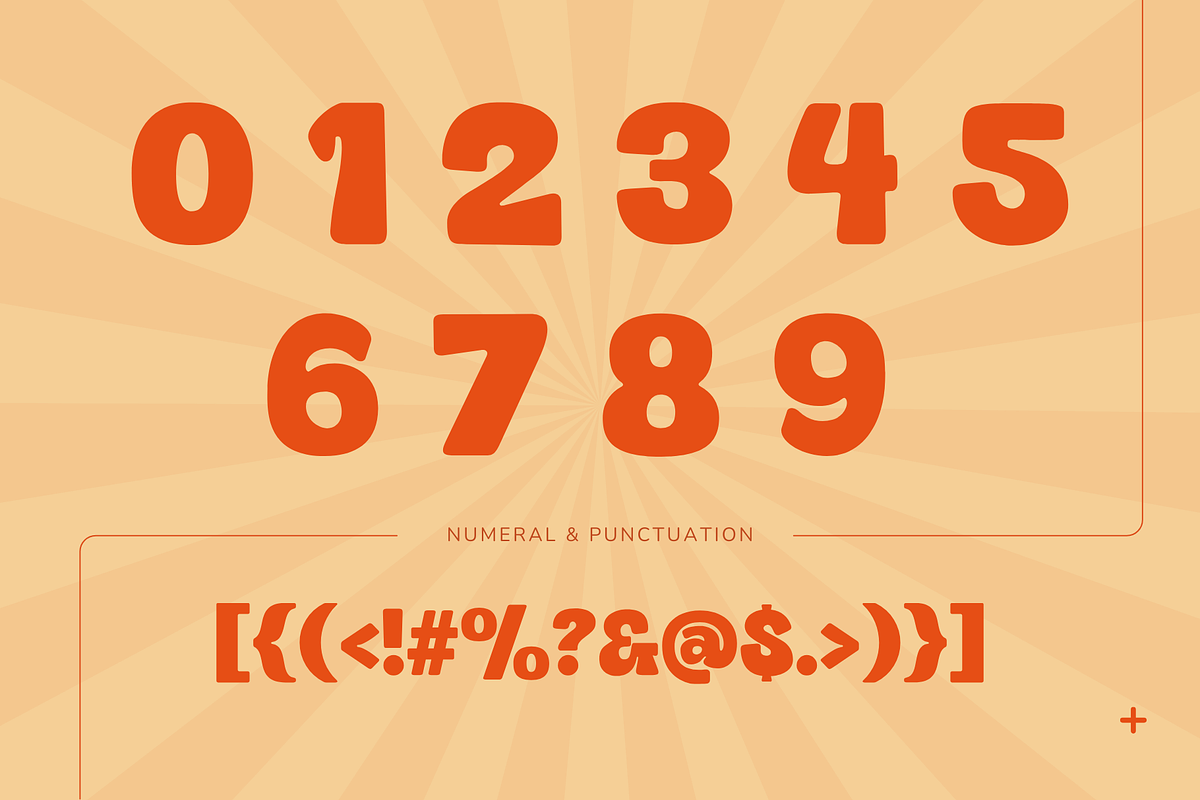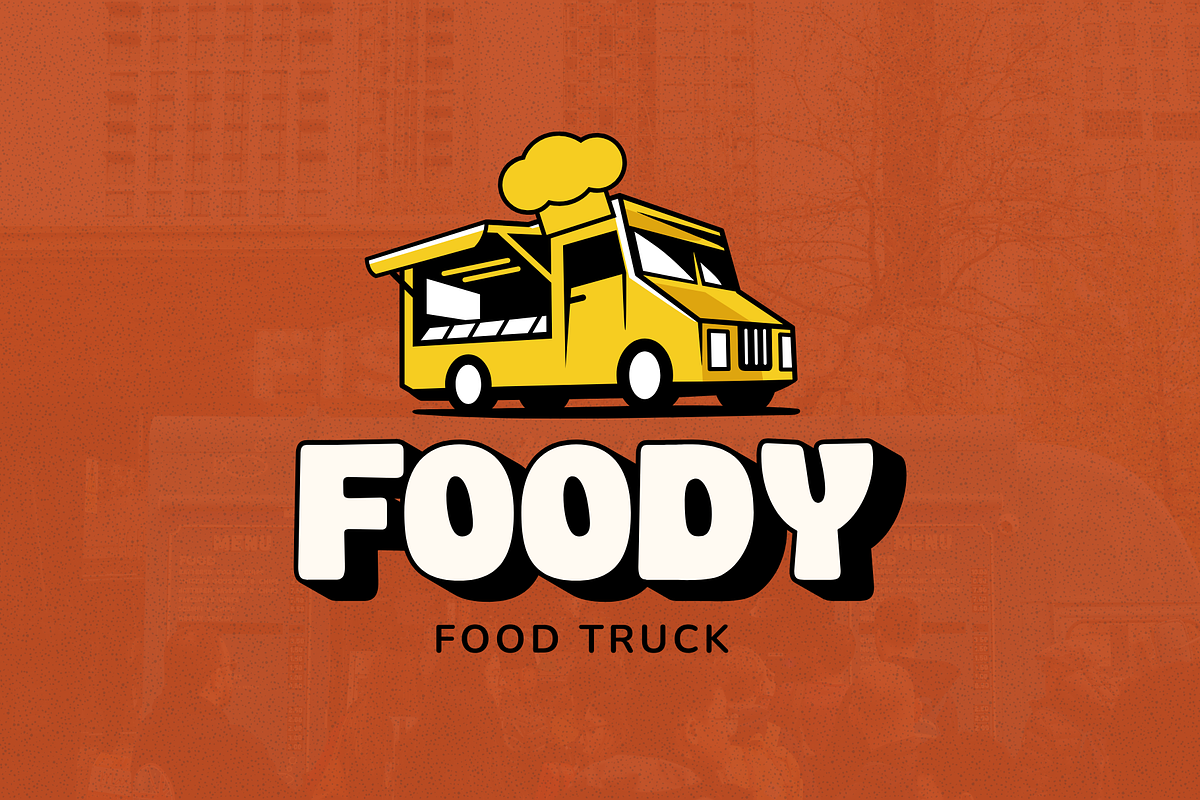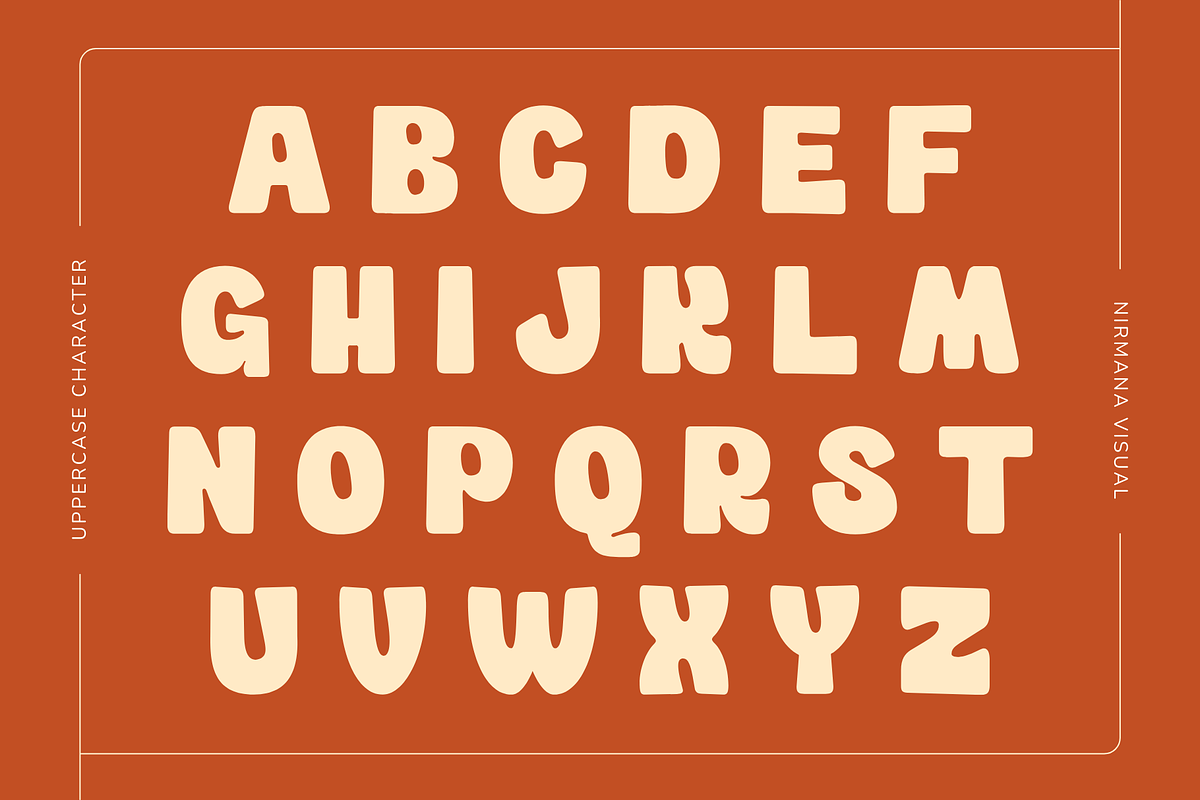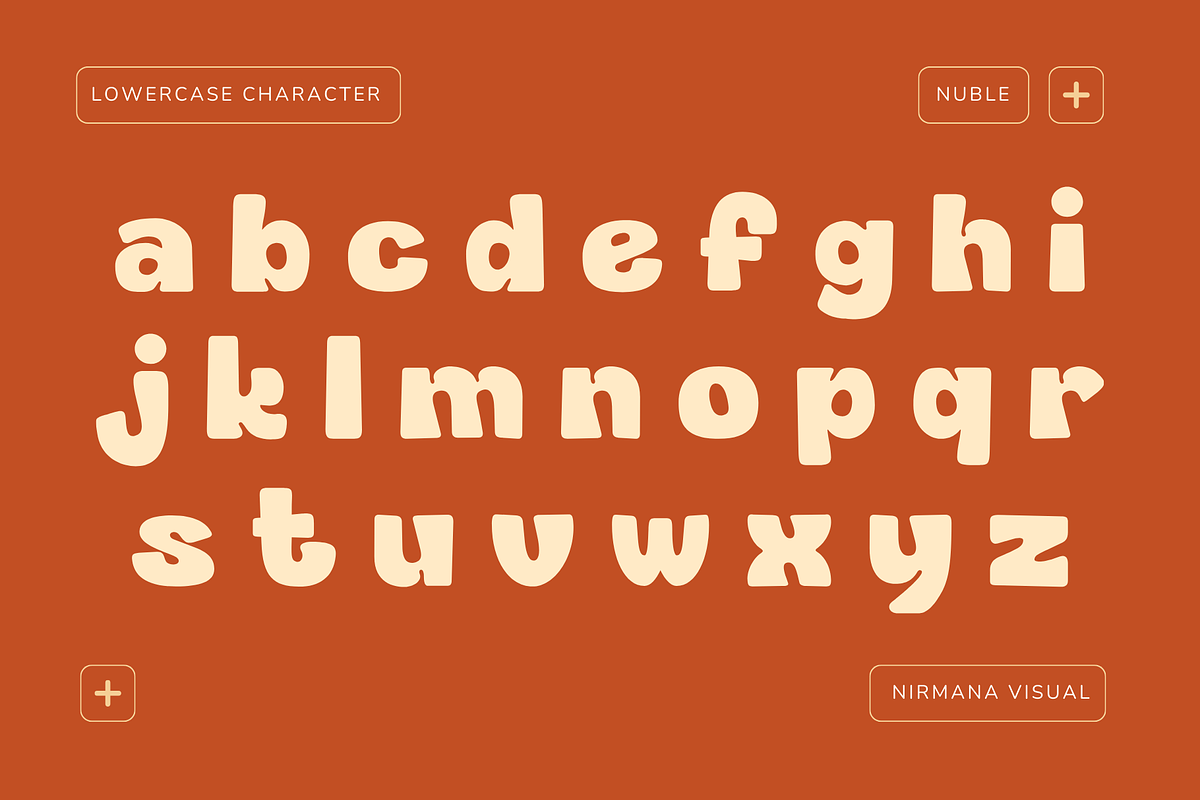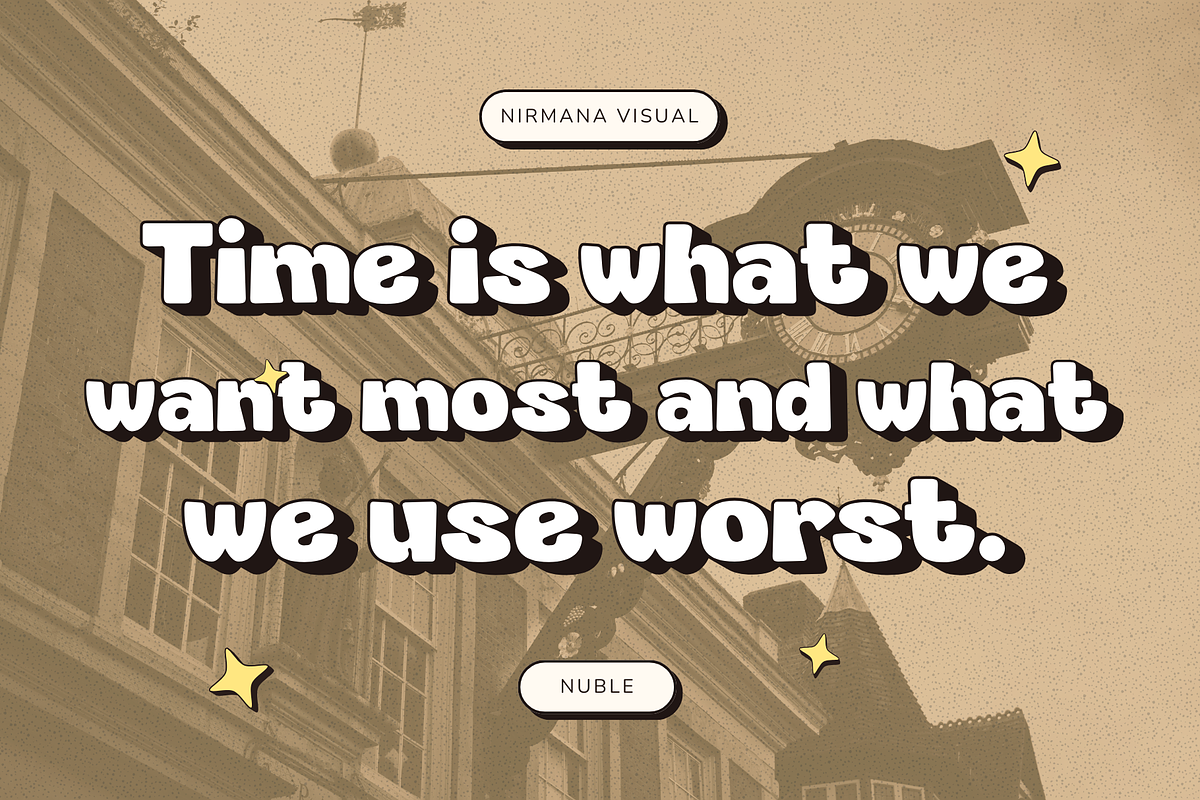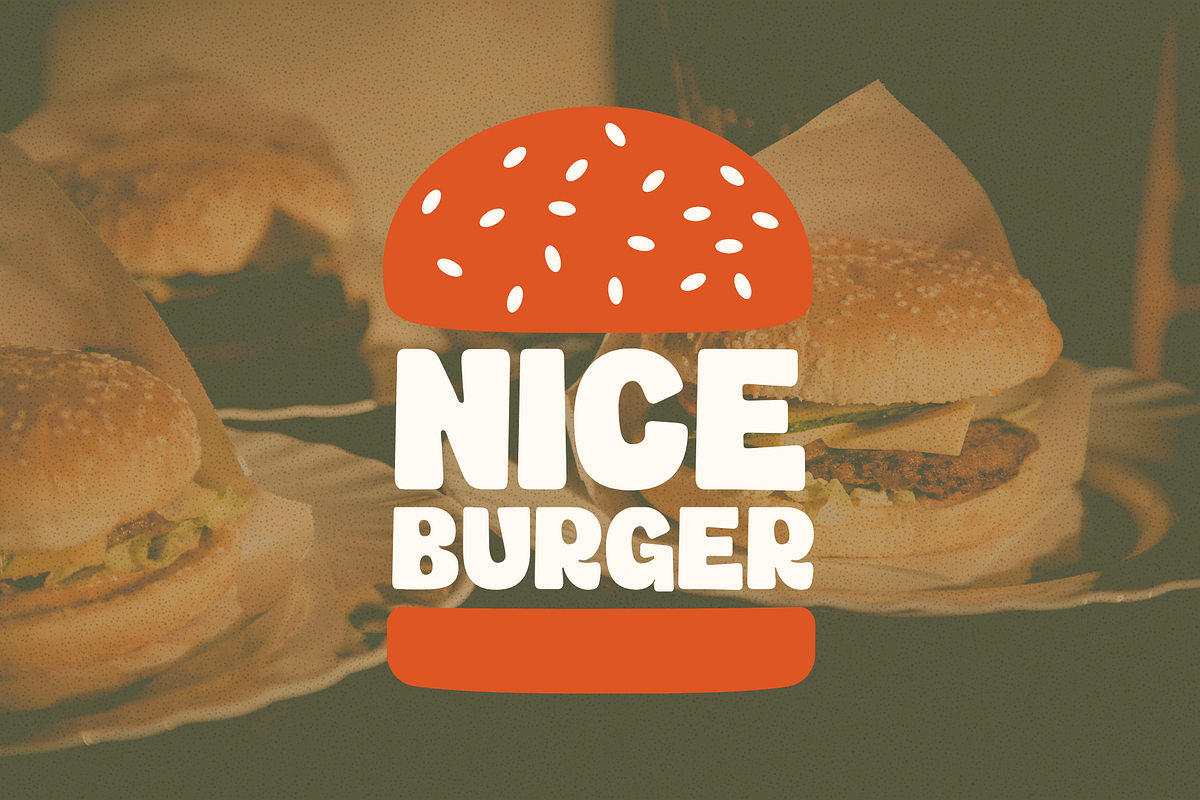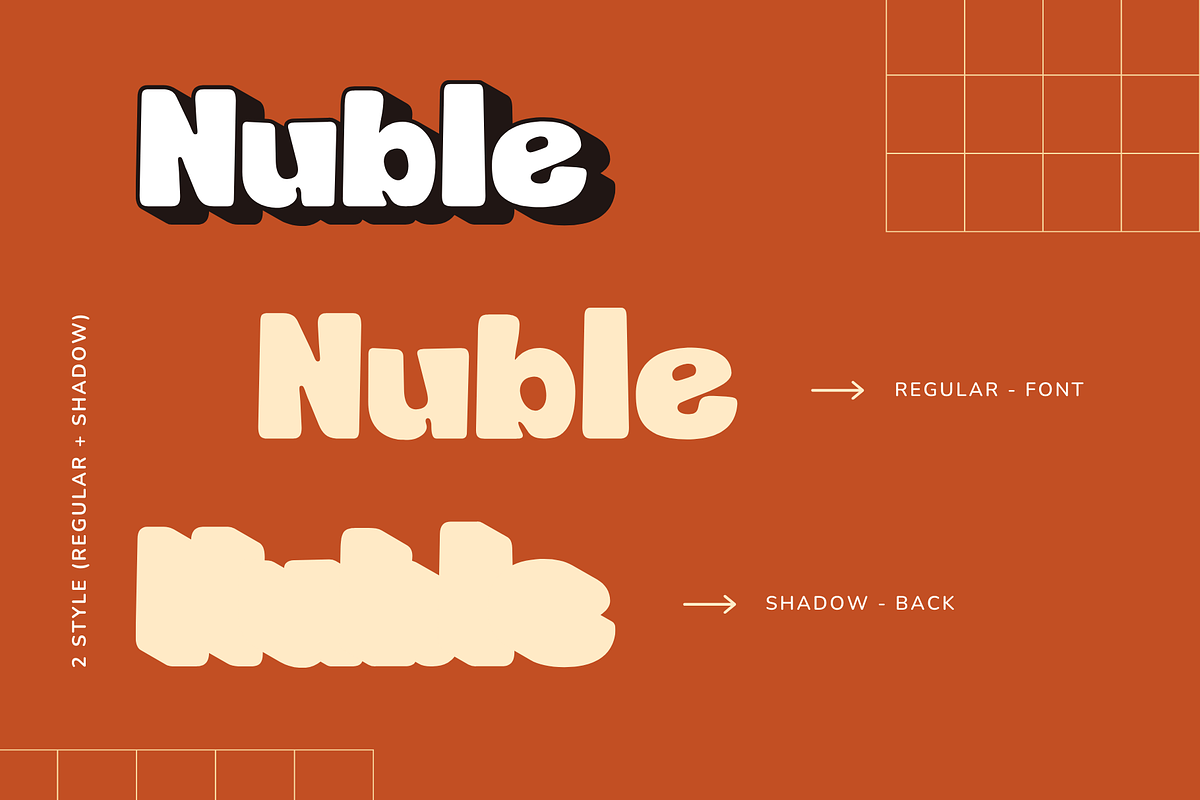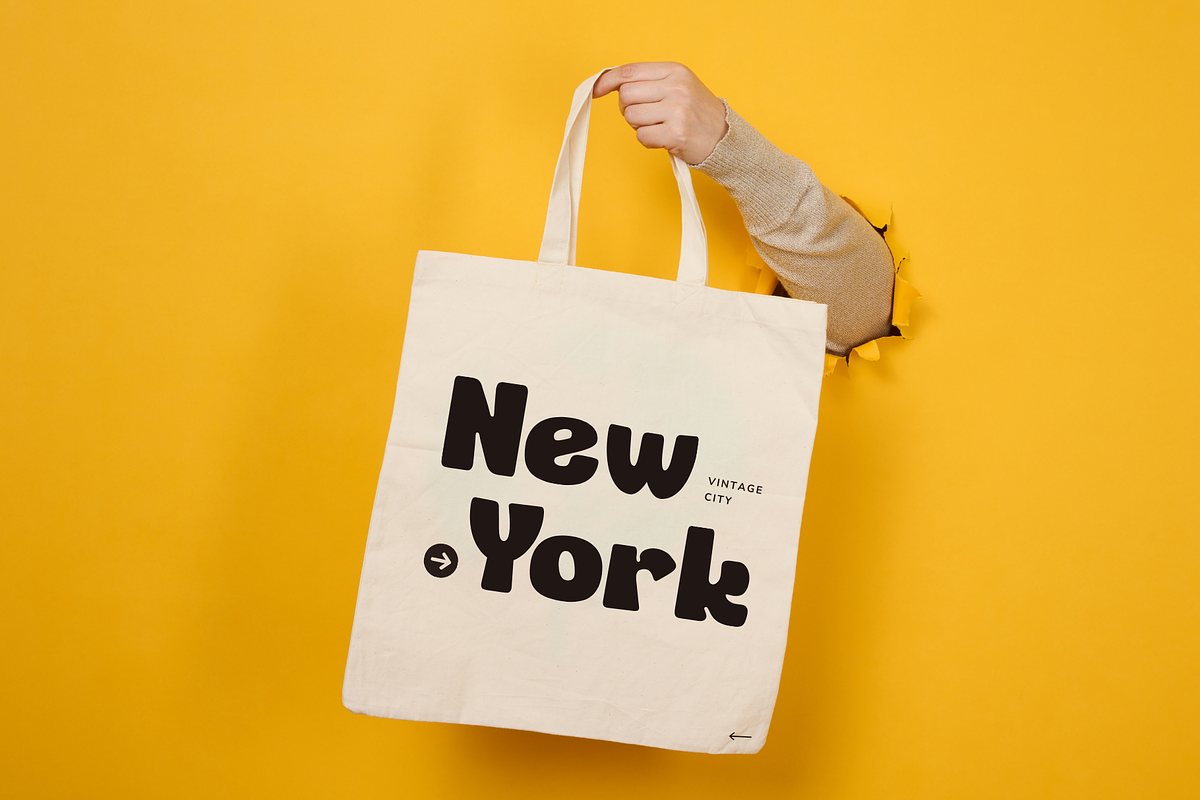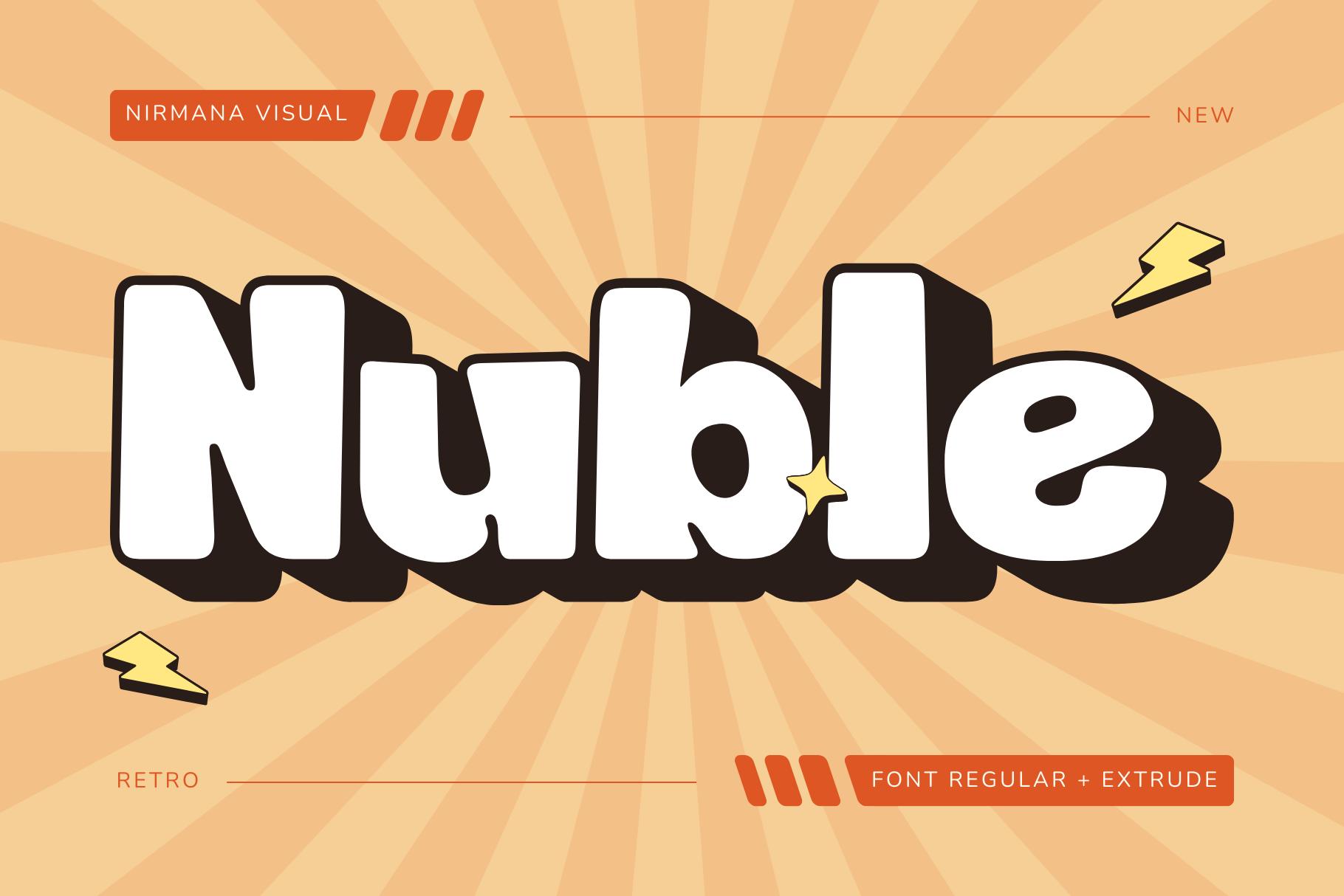
Nuble Retro - Branding Logo Font
Nuble Retro Font offers beautiful typographic harmony for a diversity of design projects, including logos & branding, social media posts, advertisements & product designs.